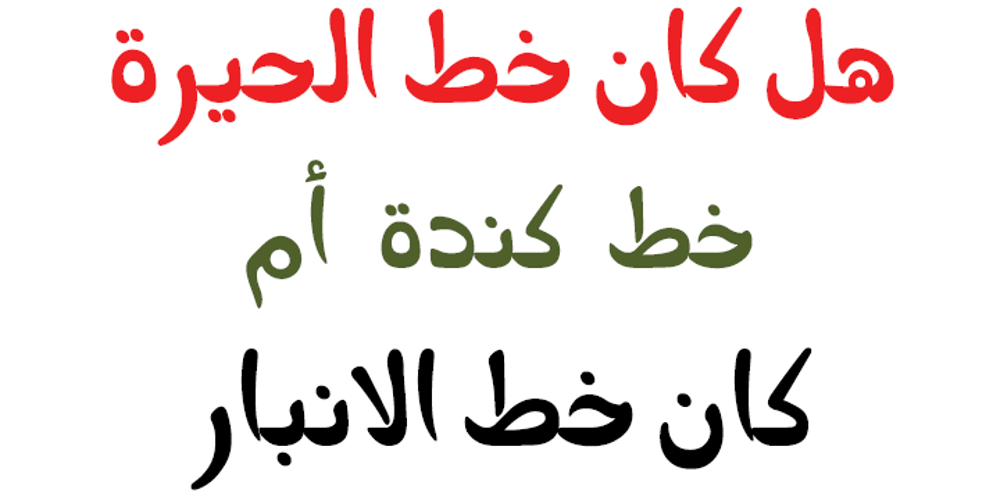
Anbar
Anbar font
Anbar Font Family was designed by Saad D. Abulhab and published by Arabetics. Anbar contains 2 styles and family package options. Anbar is an Arabetic typeface design with visually connected glyphs, named after the historical Iraqi province Anbar, which is traditionally believed to be the birthplace of the earliest Arabic script, Jazm. It follows the guidelines of the Mutamathil Taqlidi type style with one glyph for every basic Arabic Unicode character or letter, as defined in Unicode Standards, and one additional final form glyph for each Arabic letter that can connect with other letters from both sides in traditional cursive Arabic strings. Anbar employs variable x-height values. It includes all required Lam-Alif ligatures and selected marks. Tatweel (or Kashida) glyph is a zero width space. Keying it before any glyph will display that glyph isolated form, if desired. Keying Tatweel before Alif Lam Lam Ha will display the Allah ligature. Anbar typeface family includes both Arabic and Arabic-Indic numerals; all required diacritic marks, in addition to Standard English keyboard punctuations and major currency symbols. Anbar is available in regular and italic (slated to the left) styles.